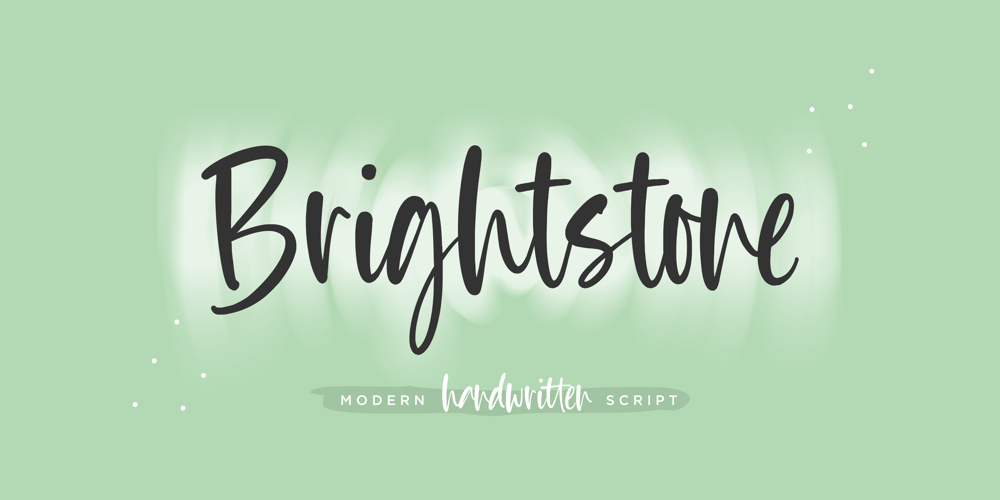
Brightstone Font Family was designed by Restu Angga and published by Balpirick. Brightstone contains 1 styles and family package options. Proudly Present, Brightstone Font.Brightstone is a Modern Handwritten Script Font. This font is suitable for use in your design projects.sIt is perfect for wedding, event, invitation, escort card, table number, header menus, display, logos, slider blog, custom address, stamps, packaging, greeting card, etc.- also multilingual supportEnjoy the font, feel free to comment or feedback, send me PM or email.Thank you!